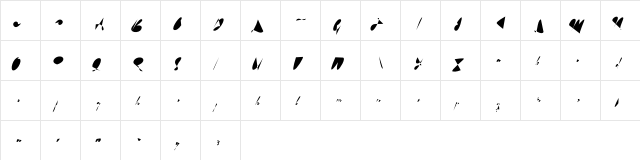
Vaniline Regular
Design Context for Vaniline Typeface
Vaniline is a composed and adaptable typeface that performs quietly and consistently across a wide range of design contexts.